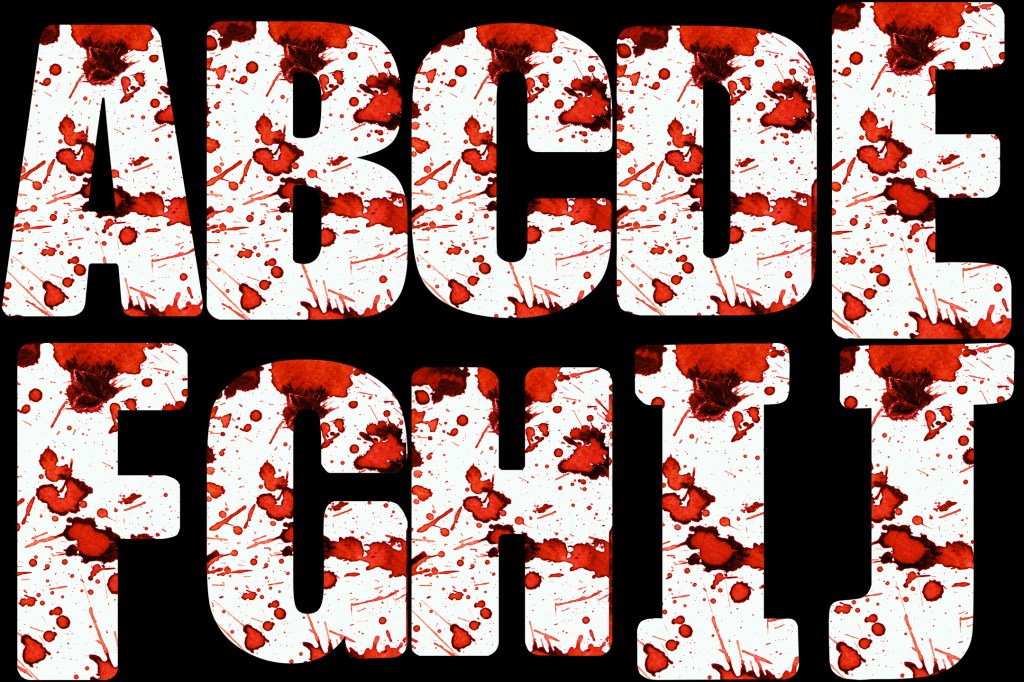
Halloween is mere seconds away for us crafters! So I have been designing some gory fonts and lettering for the spooky period! This set of fonts have been made by a paint splattered photograph and placed over the letters and numbers. Give a rather gory effect! The set is available now at Design Bundle https://designbundles.net/squeebcreative/1929317-blood-splatter-font-abc-lettering-and-numbers-hall and Creative Fabrica. https://www.creativefabrica.com/product/blood-splatter-font-abc-lettering-number/ref/940640/ Let me know what you make from them!